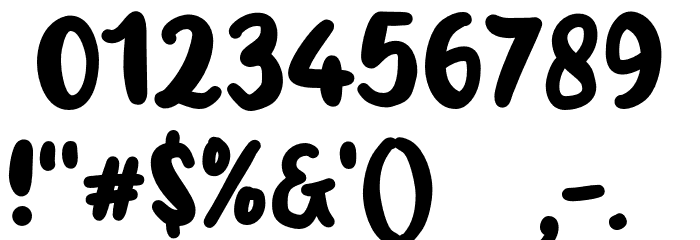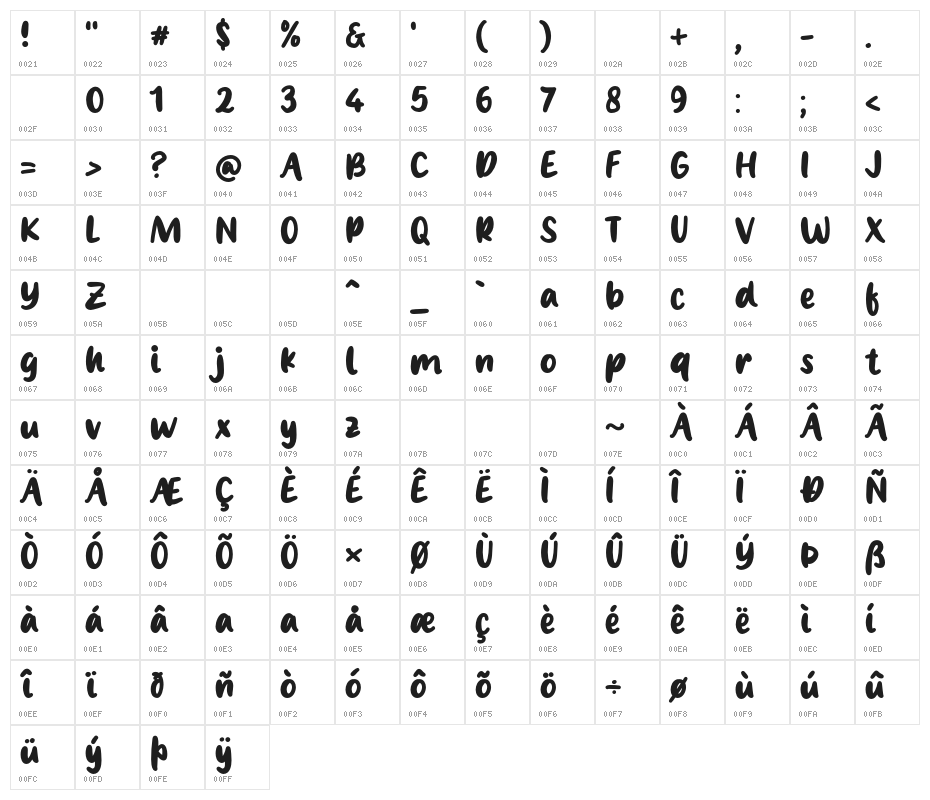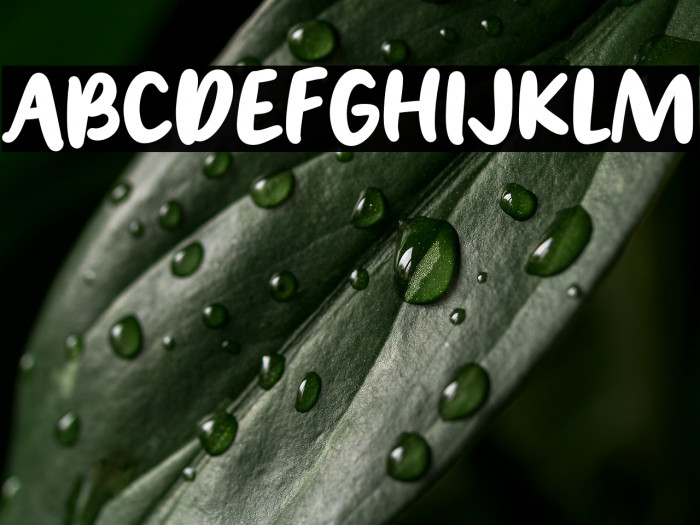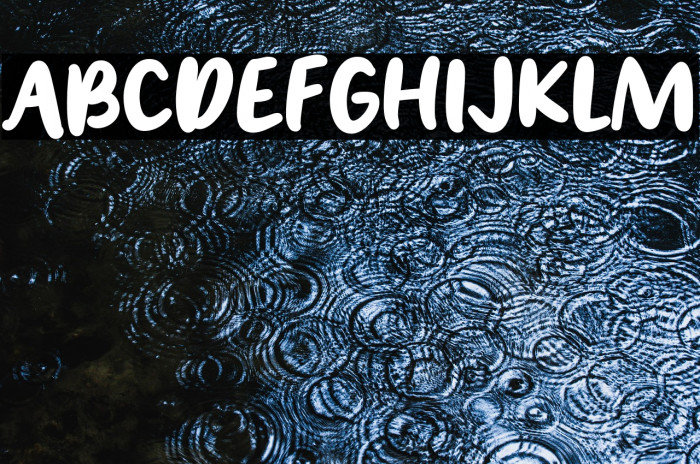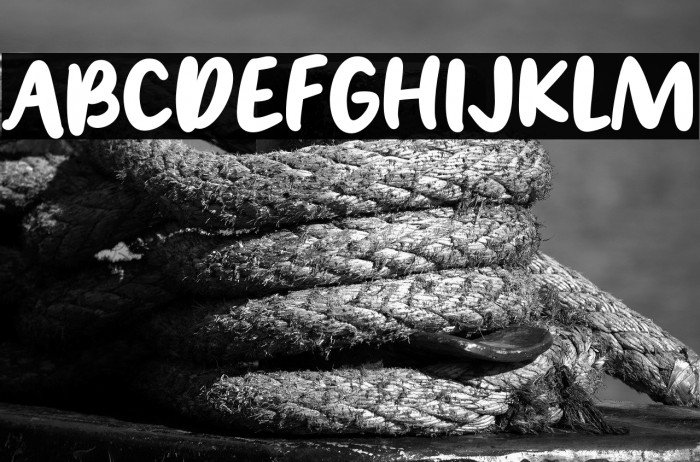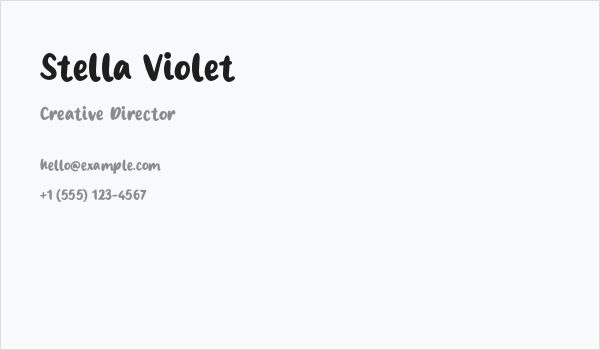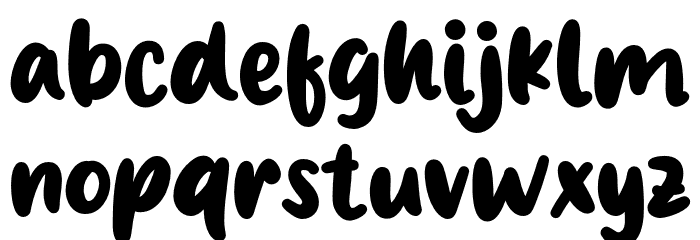
Stella Violet Font
Stella Violet Description
This font features a bold and playful handwritten style, characterized by its thick strokes and rounded edges. The letters have a casual and friendly appearance, making them suitable for informal and creative projects. The uppercase and lowercase letters maintain a consistent style, with a slightly exaggerated curve that adds to the font's charm. The numbers and special characters are equally bold and maintain the playful aesthetic, ensuring a cohesive look across all text elements. This font is ideal for projects that require a personal touch or a fun, approachable vibe.
| Proposed Projects | Ideal for greeting cards, children's books, playful branding, and social media graphics. |